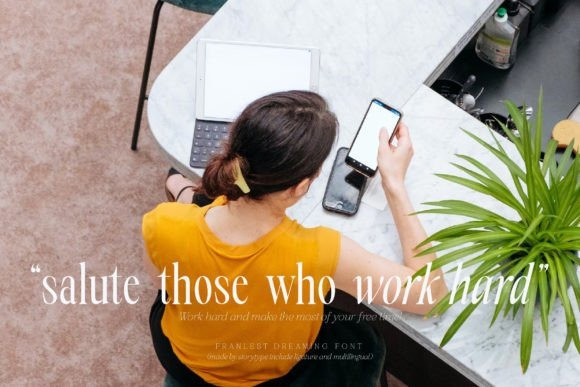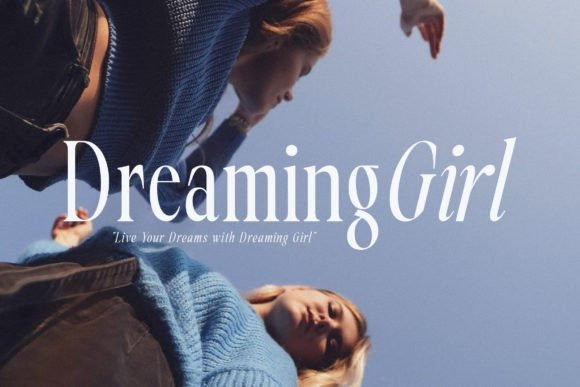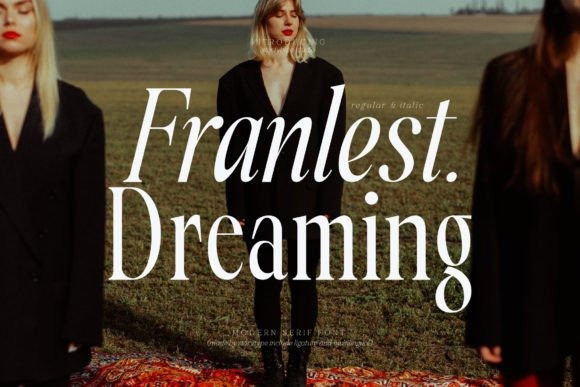
Franlest Dreaming Font
Franlest Dreaming Serif Font, created by Storytype, a serif modern and classic typeface that has own unique style & modern look.